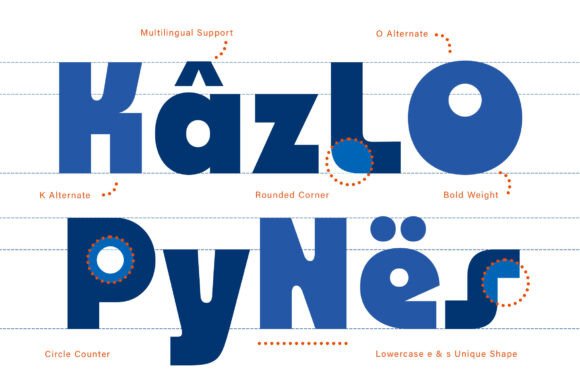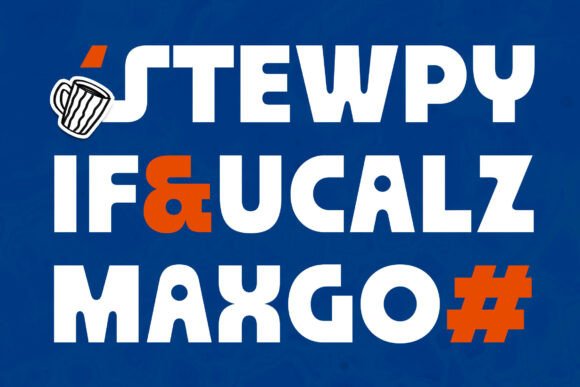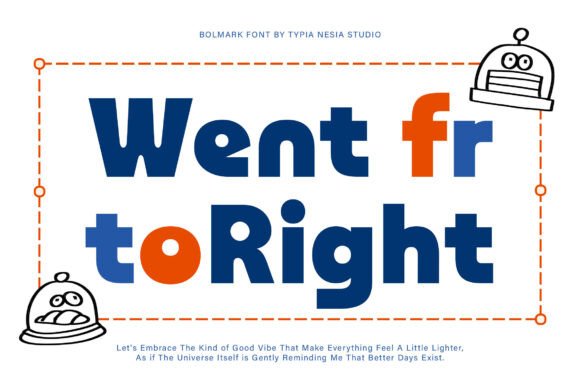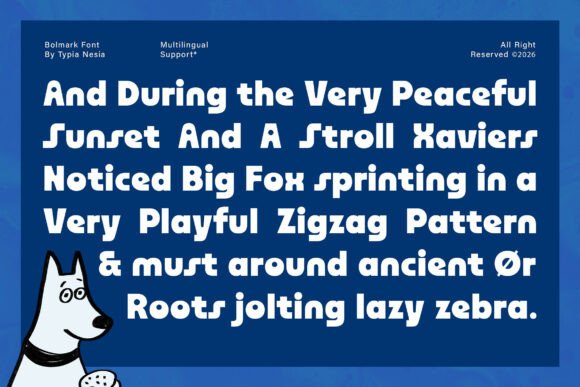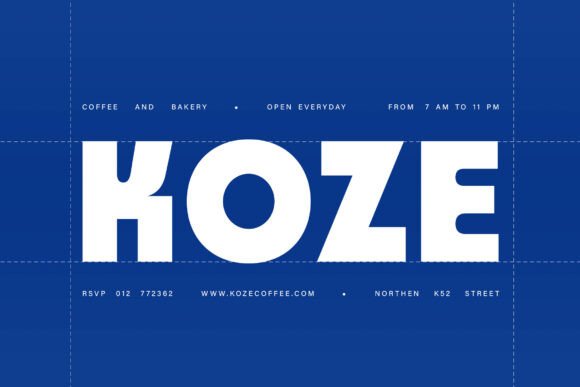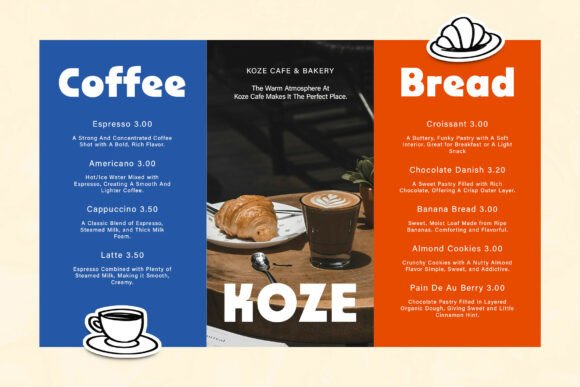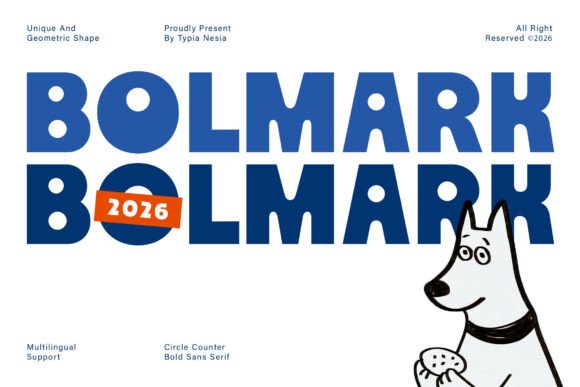
Introducing Bolmark: The Ultimate Retro Bauhaus Bold Sans Serif Font
Are you looking for a font that combines modern geometric structure with a playful and creative spirit? Look no further than Bolmark, a bold retro Bauhaus sans serif font that’s perfect for designers and crafters who want to add a touch of nostalgia and fun to their projects.
Inspired by Classic Bauhaus Design and Disco-Era Aesthetics
Bolmark is inspired by the classic Bauhaus design movement, which emerged in the early 20th century and emphasized functional simplicity, clean lines, and geometric shapes. The font also draws inspiration from the disco era of the 1970s, with its bold, playful, and energetic vibe. The result is a unique and captivating typographic style that’s both timeless and fresh.
Key Features of Bolmark Font
- Rounded Shapes and Smooth Curves: Bolmark features rounded shapes and smooth curves that give it a friendly and approachable feel.
- Strong Bold Forms: The font’s bold and strong forms make it perfect for headlines, titles, and any project that needs to stand out.
- Modern Geometric Structure: Bolmark’s geometric structure gives it a modern and sleek look that’s perfect for contemporary designs.
- Playful and Creative Spirit: The font’s playful and creative spirit makes it ideal for projects that require a fun and energetic vibe.
Bolmark is a versatile font that’s perfect for a wide range of projects, including:
- Branding and Logos: Use Bolmark to create bold and memorable logos that stand out.
- Game Design: Add a playful and energetic touch to your game designs with Bolmark.
- Kids’ Themes: Bolmark’s fun and friendly vibe makes it perfect for kids’ themes and projects.
- Posters and Headlines: Use Bolmark to create eye-catching posters and headlines that grab attention.
Why Choose Bolmark?
So why choose Bolmark over other fonts? Here are just a few reasons:
- Unique and Captivating Style: Bolmark’s unique blend of modern geometric structure and playful spirit makes it a standout font.
- Timeless and Fresh: The font’s classic Bauhaus inspiration and modern twist make it both timeless and fresh.
- Easy to Read: Bolmark’s bold and clear forms make it easy to read, even at small sizes.
- Versatile: The font’s versatility makes it perfect for a wide range of projects and applications.
Make Your Designs Bold and Playful with Bolmark
If you’re looking for a font that will add a touch of fun and creativity to your designs, look no further than Bolmark. With its bold and playful spirit, modern geometric structure, and timeless inspiration, Bolmark is the perfect choice for designers and crafters who want to make their designs stand out.